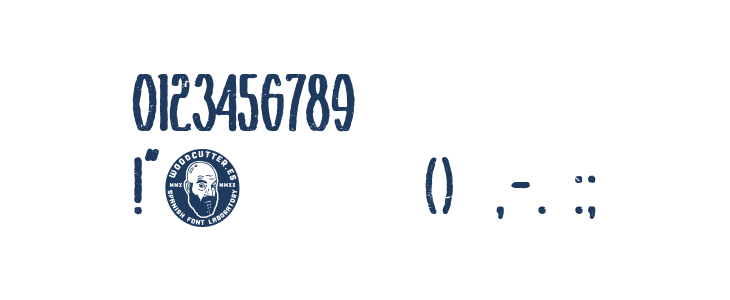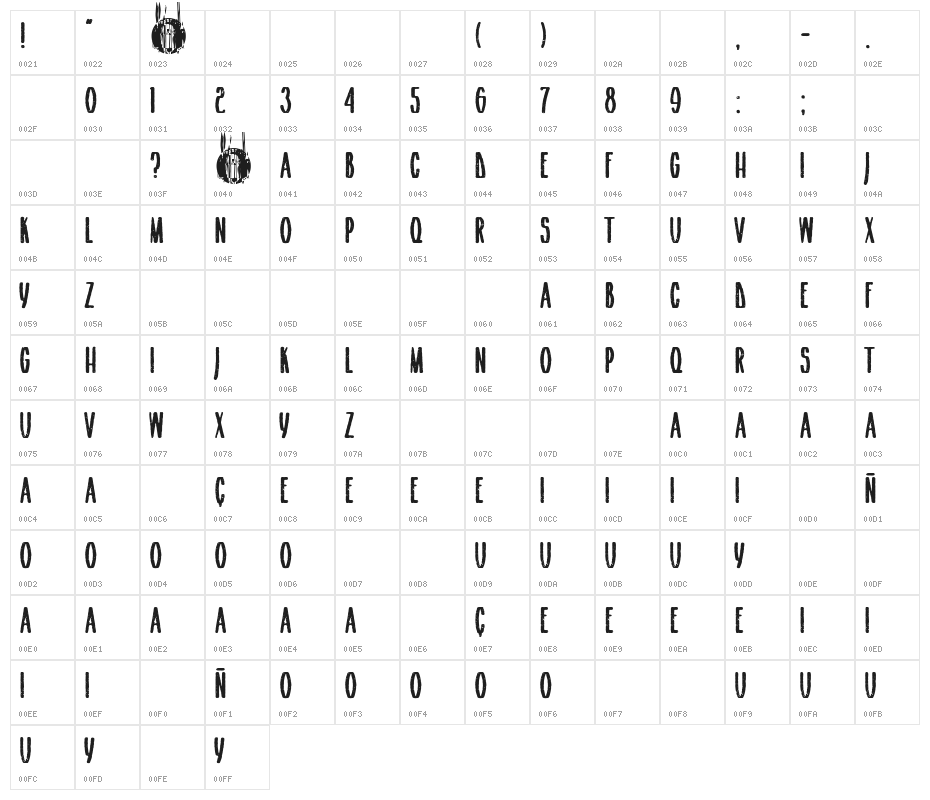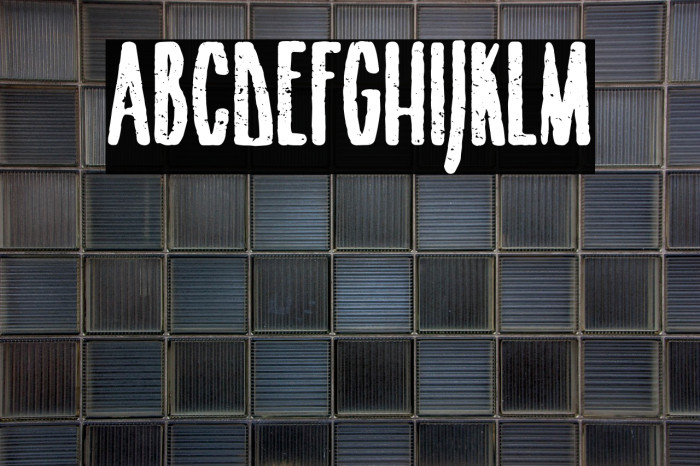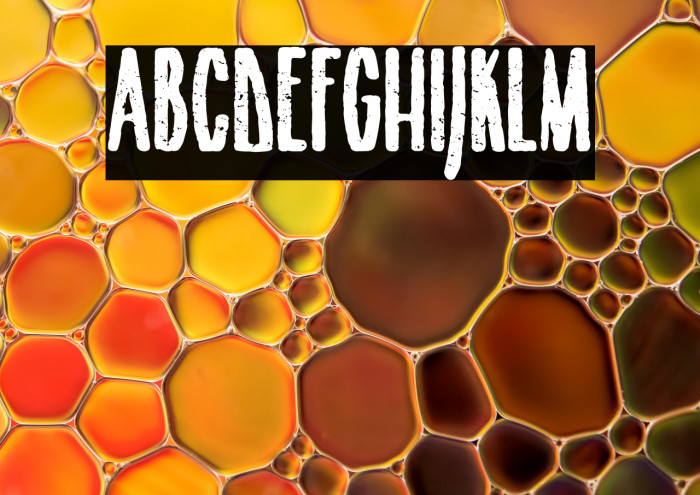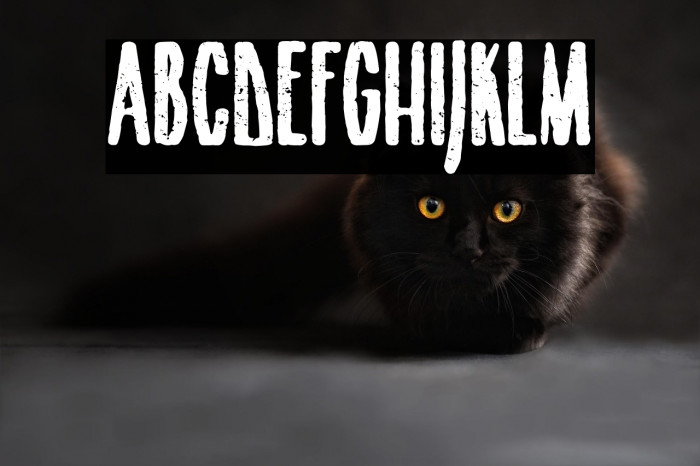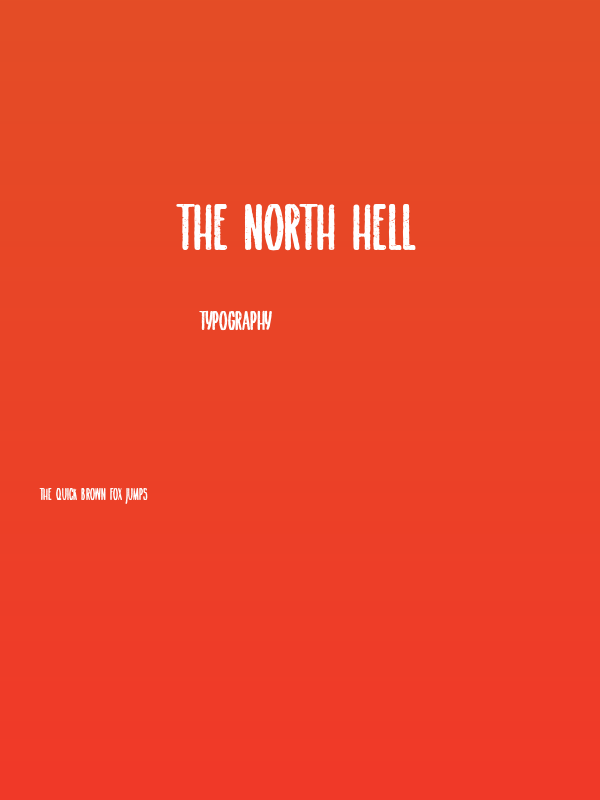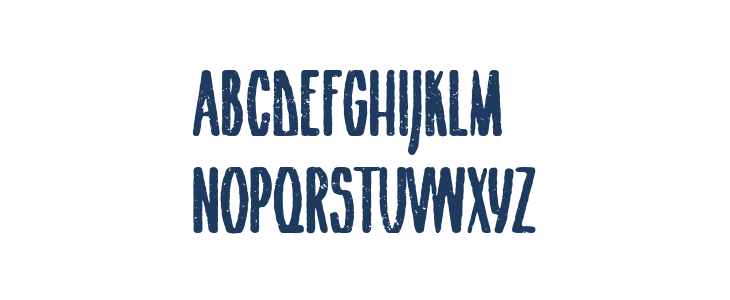
The North Hell Font
The North Hell Description
This font features a rugged, distressed style with a bold and impactful appearance. The characters have a hand-crafted look, with uneven edges and a textured finish that gives them a vintage, worn feel. The uppercase letters are tall and narrow, while the lowercase letters maintain a consistent height, adding to the font's unique character. The numbers and special characters follow the same distressed aesthetic, making them suitable for projects that require a rustic or gritty look. This font is ideal for creating eye-catching headlines, posters, and branding materials that need a bold statement.
| Use Case | Headlines, Posters, Branding |
| Proposed Projects | Perfect for posters, branding, and headlines needing a rugged, vintage look. |